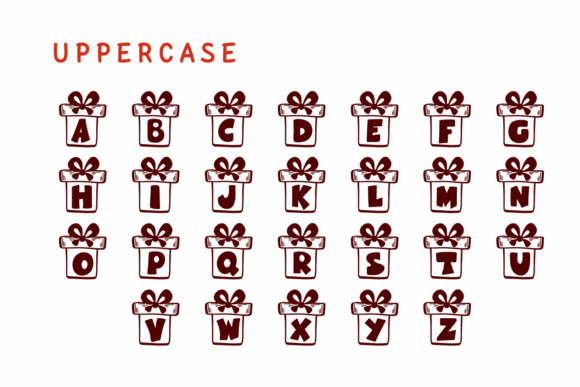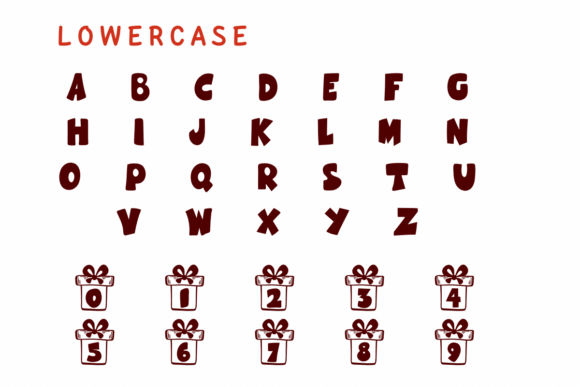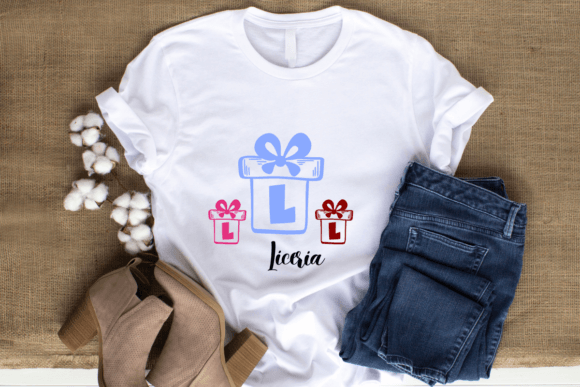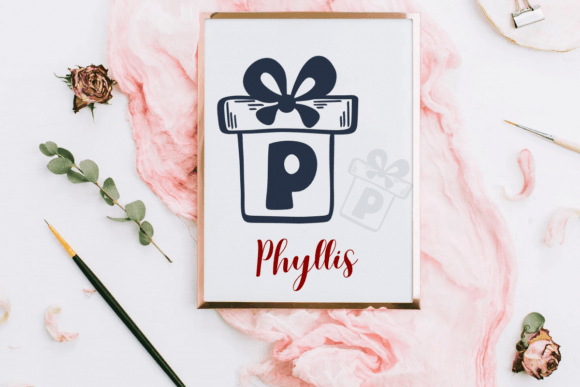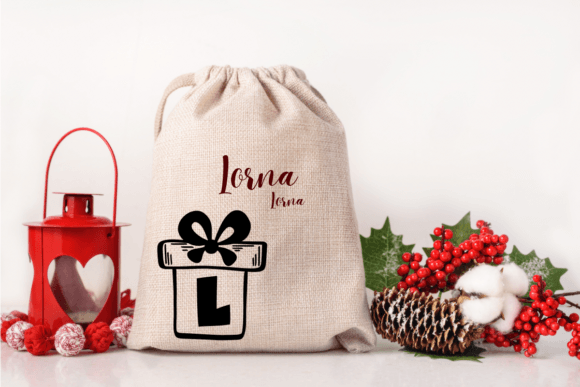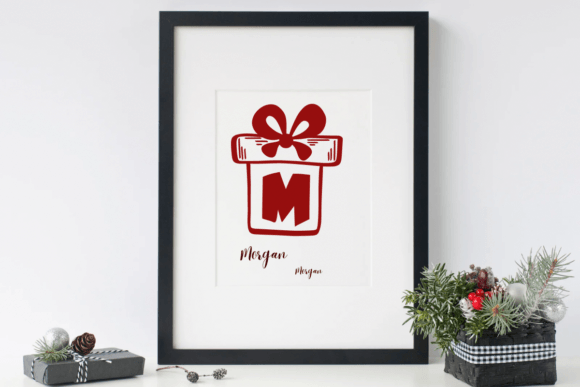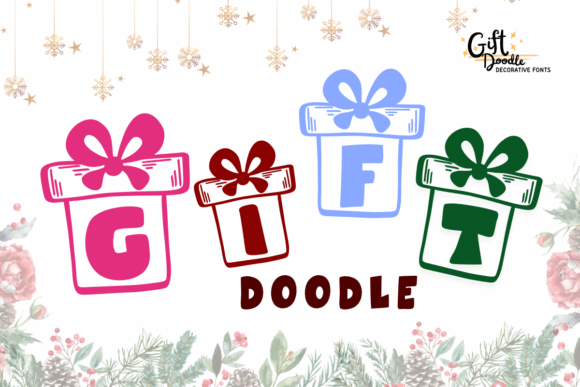
Introducing Gift Doodle Font: The Perfect Addition to Your Festive Designs
Are you looking for a font that adds a touch of festivity and playfulness to your designs? Look no further than Gift Doodle Font! This delightful font is perfect for crafters, designers, and anyone who loves to add a personal touch to their creations. In this article, we’ll dive into the world of Gift Doodle Font and explore its many uses, from note-taking to social media posts.
What is Gift Doodle Font?
Gift Doodle Font is a festive decorative font that’s designed to bring a smile to your face. Its playful, hand-drawn style makes it perfect for a variety of creative projects, from greeting cards to banners, and from notes to social media posts. With Gift Doodle Font, you can add a touch of whimsy and fun to your designs, making them stand out from the crowd.
Uses for Gift Doodle Font
So, what can you use Gift Doodle Font for? The possibilities are endless! Here are some ideas to get you started:
- Note-taking: Add a touch of personality to your notes with Gift Doodle Font. Whether you’re jotting down reminders or writing a to-do list, this font is sure to make your notes more fun and engaging.
- Diary writing: Make your diary entries more special with Gift Doodle Font. This font is perfect for writing down your thoughts, feelings, and experiences in a unique and creative way.
- Greeting cards: Create one-of-a-kind greeting cards for special occasions like birthdays, holidays, and anniversaries. Gift Doodle Font is sure to make your cards stand out from the crowd.
- Banners: Add a festive touch to your banners with Gift Doodle Font. Whether you’re creating a banner for a party, event, or special occasion, this font is sure to make it more eye-catching.
- Mugs, cards, shirts, and more: Gift Doodle Font is perfect for designing a variety of products, from mugs and cards to shirts and stationery. You can also use it to create social media posts, blog headers, and more!
Why Choose Gift Doodle Font?
So, why should you choose Gift Doodle Font for your designs? Here are just a few reasons:
- Unique and playful: Gift Doodle Font is a one-of-a-kind font that’s sure to add a touch of personality to your designs. Its playful style makes it perfect for creating fun and engaging content.
- Versatile: Gift Doodle Font is incredibly versatile, making it perfect for a wide range of designs, from notes and diaries to banners and social media posts.
Tips for Using Gift Doodle Font
Here are a few tips for using Gift Doodle Font in your designs:
- Experiment with colors: Gift Doodle Font looks great in a variety of colors, so don’t be afraid to experiment and find the perfect hue for your design.
- Mix and match: Try mixing and matching Gift Doodle Font with other fonts and design elements to create a unique and eye-catching design.
- Keep it simple: Don’t be afraid to keep your design simple and clean. Gift Doodle Font is perfect for creating simple, yet effective designs.